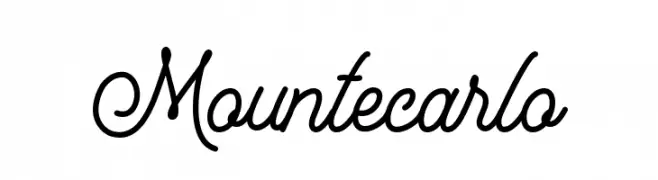
• Mountecarlo
A sophisticated script font with flowing, connected strokes.
• Tortello
A playful, bold font with rounded, hand-drawn letterforms.
• Castello
A lively, flowing handwritten font with smooth, cursive strokes.
• THE MYTH OF RIVER SOLO